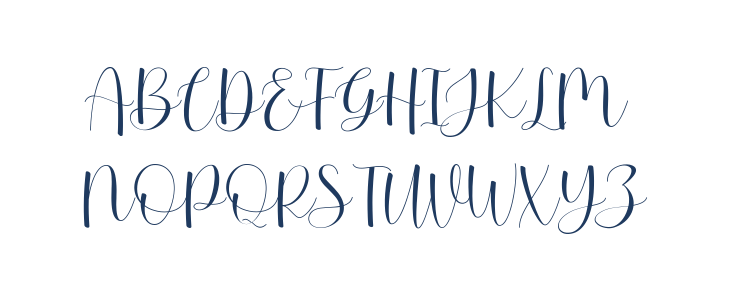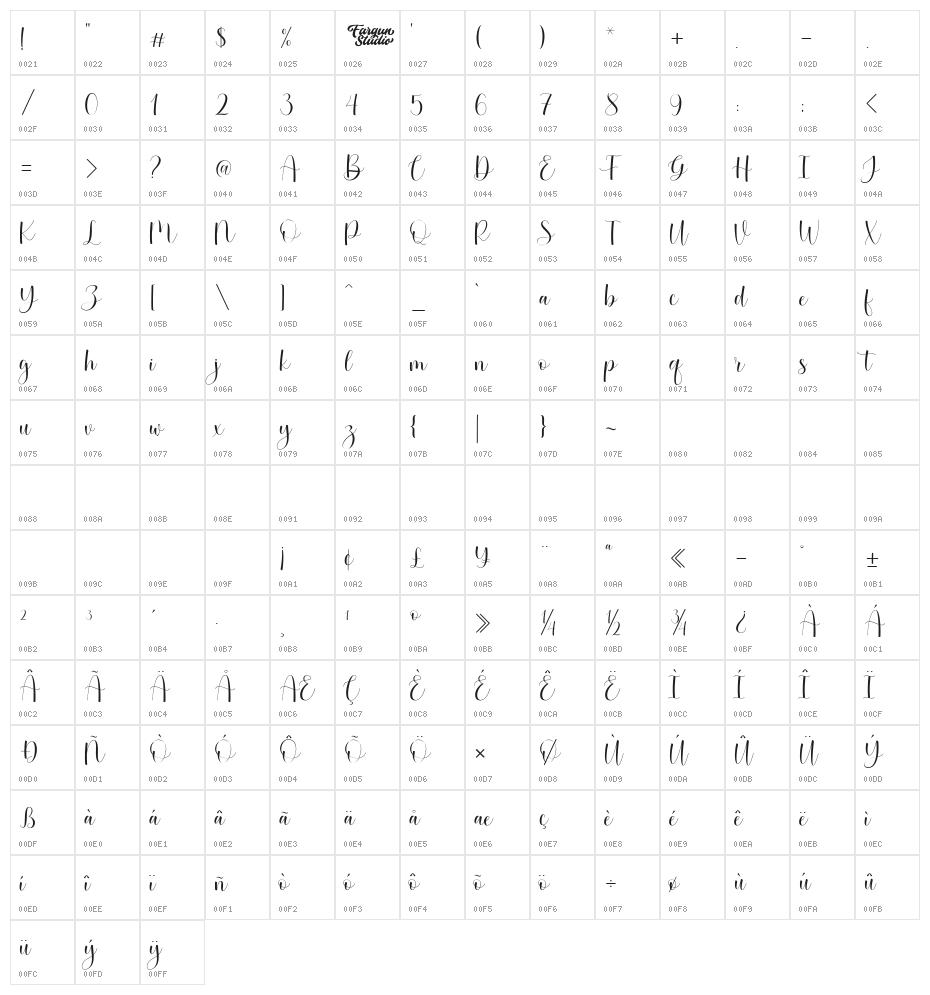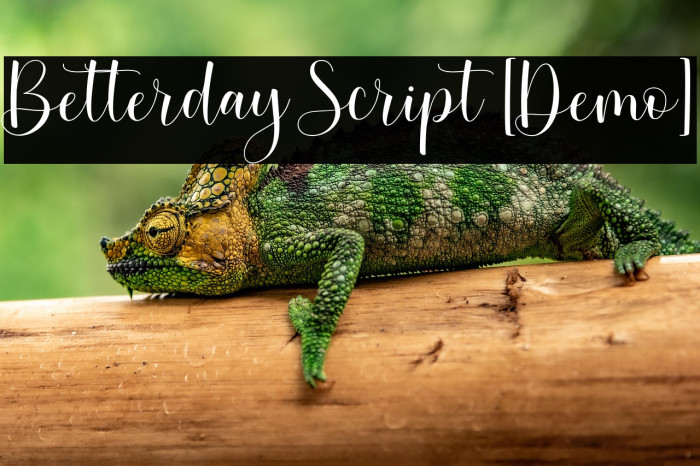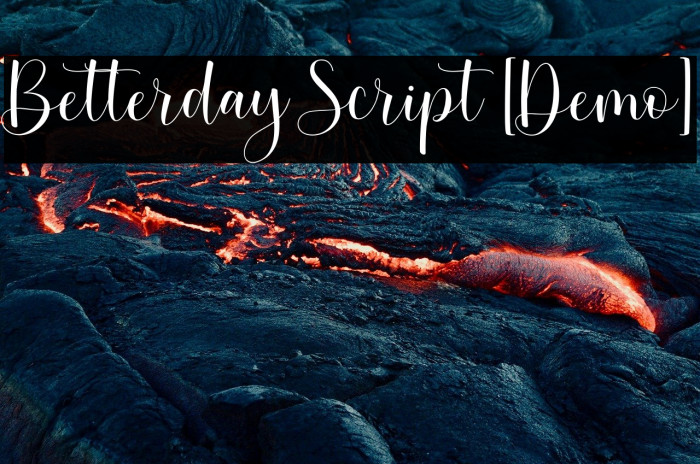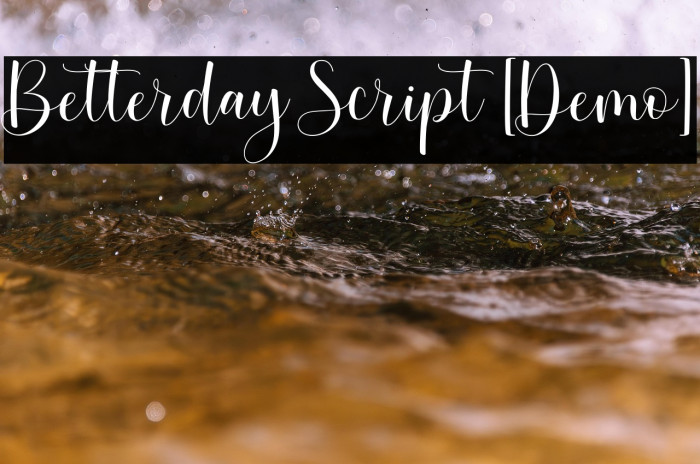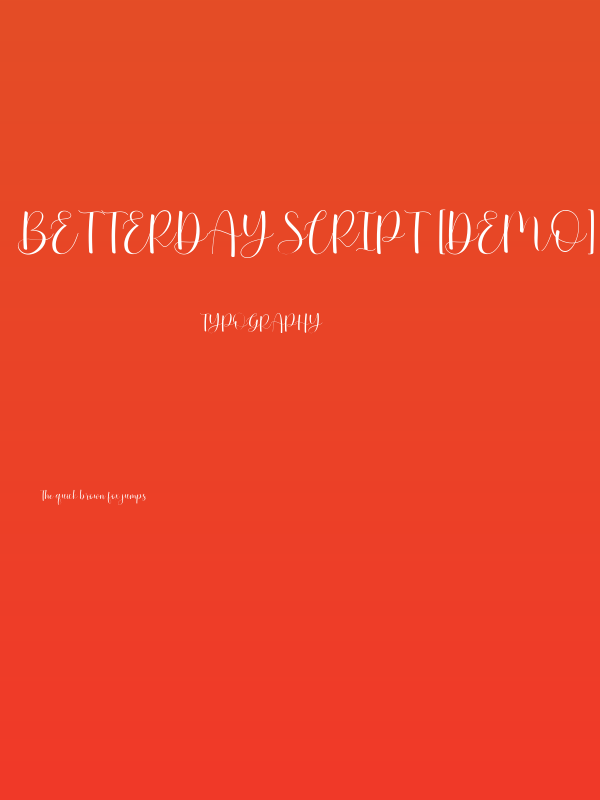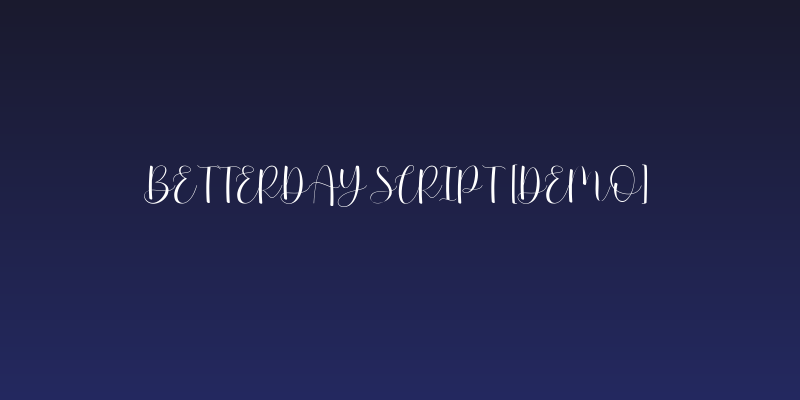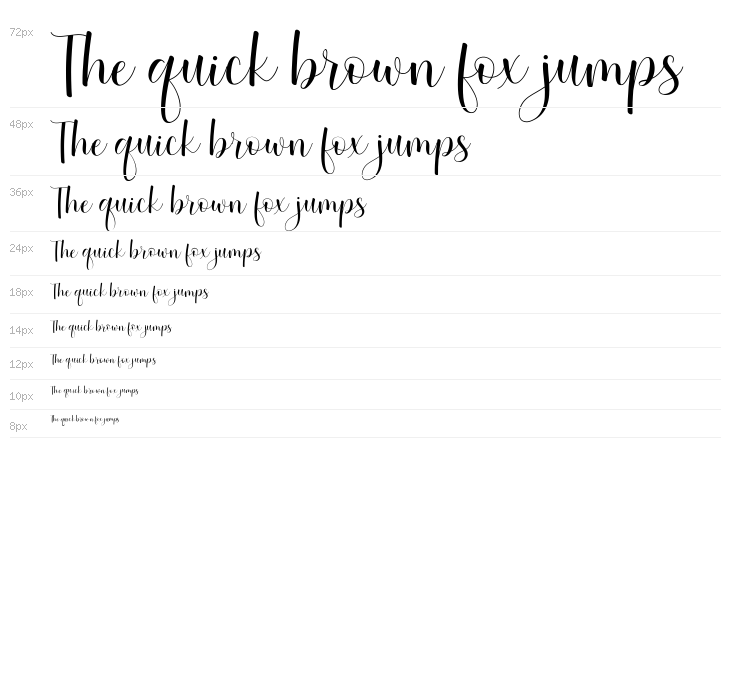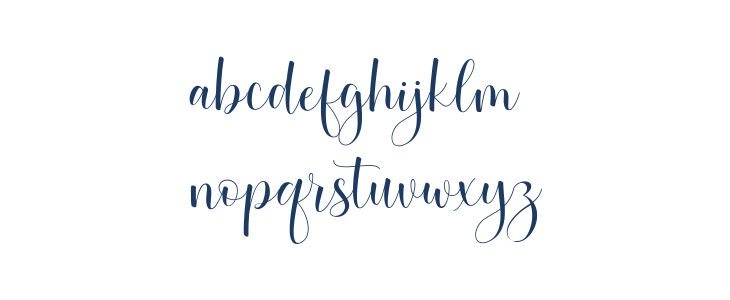
Betterday Script [Demo] Font
Betterday Script [Demo] Description
This elegant script font features a flowing, cursive style with intricate loops and swashes, giving it a sophisticated and artistic appearance. The uppercase letters are tall and graceful, with sweeping ascenders and descenders that add a touch of drama. The lowercase letters maintain a consistent flow, enhancing readability while preserving the decorative nature of the font. Numbers and special characters are designed to complement the overall style, making it suitable for a variety of creative applications. The font's delicate strokes and high contrast between thick and thin lines contribute to its refined and stylish look.
| Overall Style | Elegant, Artistic |
| Use Case | Logos, Invitations, Decorative text |
| Proposed Projects | Ideal for wedding invitations, greeting cards, branding, and elegant logo designs. |